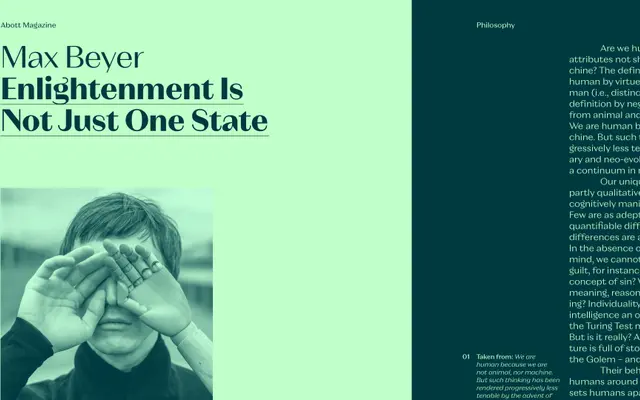
Neue Magnat Text
Studio Rene Bieder · Rene Bieder
A text-weight cut of the Neue Magnat family, offering six weights with italics and a generous set of OpenType alternates for refined typesetting.
Part of a three-subfamily system alongside Display and Standard variants, the Text cut is shaped for sustained reading with optical calibration suited to smaller sizes. Six weights from Light to ExtraBold each carry a matching italic, while OpenType features include alternate forms for a, g, y, k and the ampersand, plus case-sensitive forms, tabular figures and fraction support. The alternate ÄÖÜ and punctuation options give German-language work additional typographic control.
Neue Magnat Text is a humanist sans-serif optimised for text sizes, featuring alternate single-storey and double-storey letterforms that suggest a warm, contemporary approach to the grotesque tradition.